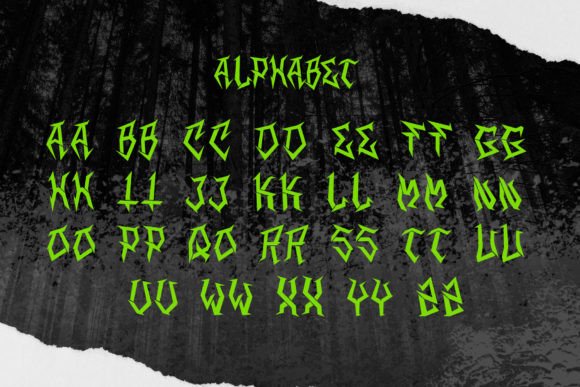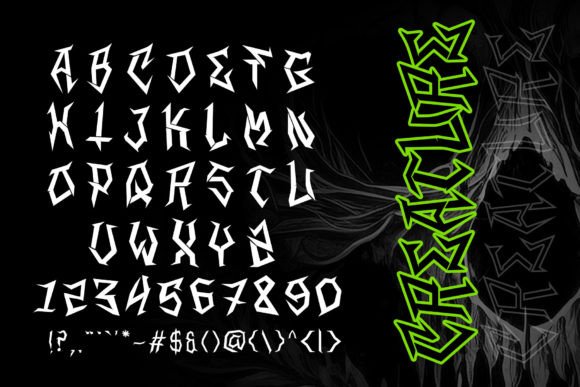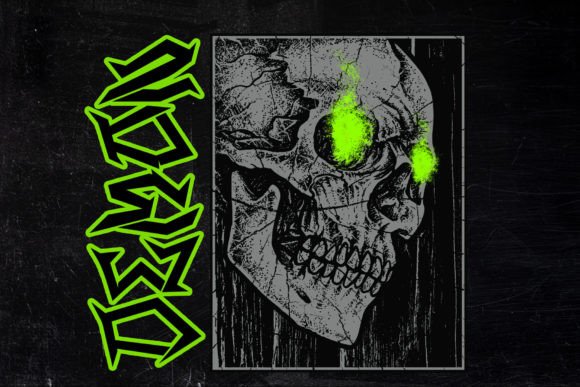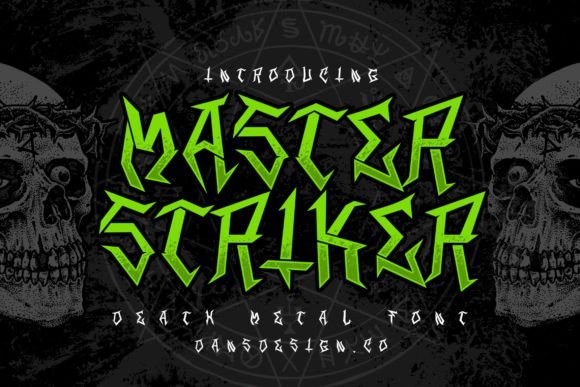
Introduction to Master Stricker Font
MASTER STRICKER is a distinct, highly detailed, and Horror Metal Font font.
It would make a great choice for exquisite Music, Poster, retro-urban designs, tattoo business branding, logos, vintage designs, and more .
Key Features of Master Stricker Font
Why Choose Master Stricker Font?
Master Stricker Font offers exceptional quality and versatility, making it a valuable addition to your design toolkit. Whether you’re creating for personal projects or commercial use, Master Stricker Font delivers professional results.